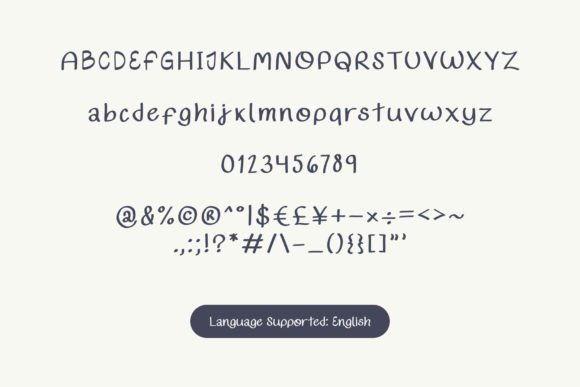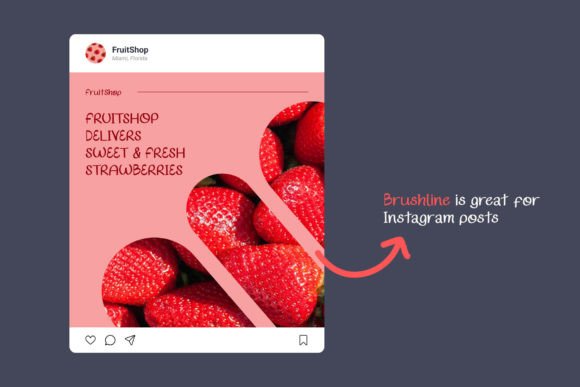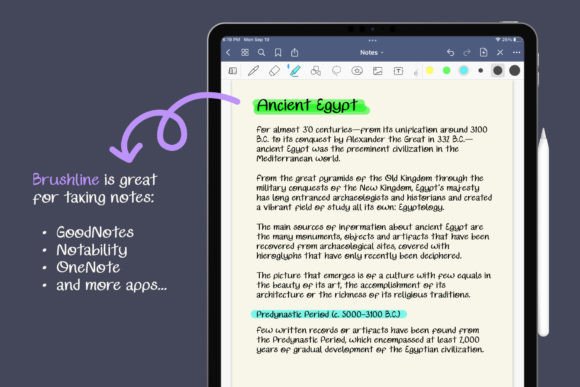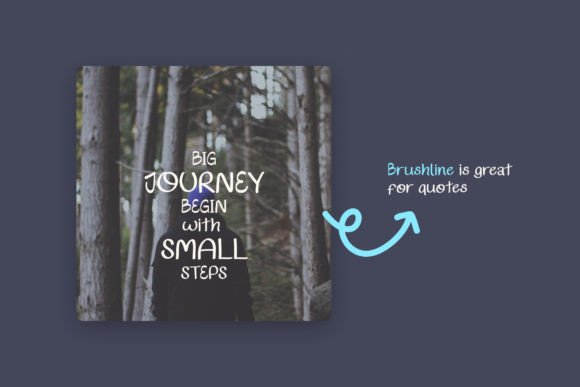
Introducing Brushline Font: The Perfect Modern Script Font for Crafting Needs
Are you a designer or crafter looking for a unique and bold font to elevate your creative projects? Look no further than Brushline Font, a modern script font designed to meet all your crafting needs. With its striking bold strokes and distinctive lettering, Brushline Font is the ideal choice for logos, posters, banners, and a wide range of other applications.
What Makes Brushline Font Stand Out?
Brushline Font is a carefully crafted modern script font that boasts a unique blend of elegance and playfulness. Its bold strokes and fluid lettering make it perfect for creating eye-catching designs that demand attention. Whether you’re working on a logo, poster, or banner, Brushline Font is guaranteed to add a touch of sophistication and style to your project.
Key Features of Brushline Font
- Bold Strokes: Brushline Font features bold, expressive strokes that add depth and character to your designs.
- Unique Lettering: The font’s distinctive lettering style sets it apart from more traditional fonts, making it perfect for designers and crafters looking to create something truly unique.
- Modern Script Style: Brushline Font boasts a modern script style that’s both elegant and playful, making it suitable for a wide range of applications.
- High Versatility: Whether you’re working on a logo, poster, banner, or any other type of design, Brushline Font is the perfect choice.
Perfect for Crafting Needs
As a crafter, you know how important it is to have the right tools and resources at your disposal. Brushline Font is designed specifically with crafters in mind, providing a unique and versatile font that can be used for a wide range of projects. From handmade cards and invitations to DIY signs and banners, Brushline Font is the perfect choice for adding a personal touch to your creations.
Ideas for Using Brushline Font
So, how can you use Brushline Font in your designs? Here are a few ideas to get you started:
- Logos: Create a bold and eye-catching logo for your business or brand using Brushline Font.
- Posters: Design a stunning poster for your next event or promotion using Brushline Font.
- Banners: Add a touch of elegance and sophistication to your banners with Brushline Font.
- Social Media Graphics: Use Brushline Font to create engaging and shareable social media graphics.
- Handmade Cards and Invitations: Add a personal touch to your handmade cards and invitations with Brushline Font.
Tips for Getting the Most Out of Brushline Font
To get the most out of Brushline Font, here are a few tips to keep in mind:
- Experiment with Colors: Brushline Font looks great in a wide range of colors, so don’t be afraid to experiment and find the perfect hue for your design.
- Play with Sizes: Brushline Font can be used at a variety of sizes, from large and bold to small and delicate.
- Combine with Other Fonts: Brushline Font pairs well with a wide range of other fonts, so feel free to get creative and combine it with other fonts to create a unique look.
In conclusion, Brushline Font is a modern script font that’s perfect for designers and crafters looking to add a touch of elegance and sophistication to their projects. With its bold strokes, unique lettering, and high versatility, Brushline Font is the ideal choice for a wide range of applications. Whether you’re working on a logo, poster, banner, or any other type of design, Brushline Font is guaranteed to make your project stand out.